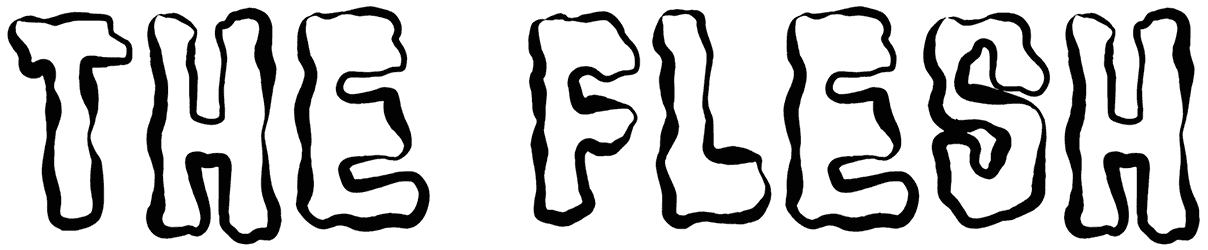
The Flesh Font
Cause the words to tremble and give a unique mood to your scary design with The Flesh. This horror font consists of bold and hollow letters and, with its shaky form, will convey a ghostly vibe. Set The Flesh for Halloween postcards, posters, spooky games, or the like, and reflect a chilling mood even without lowercase letters.